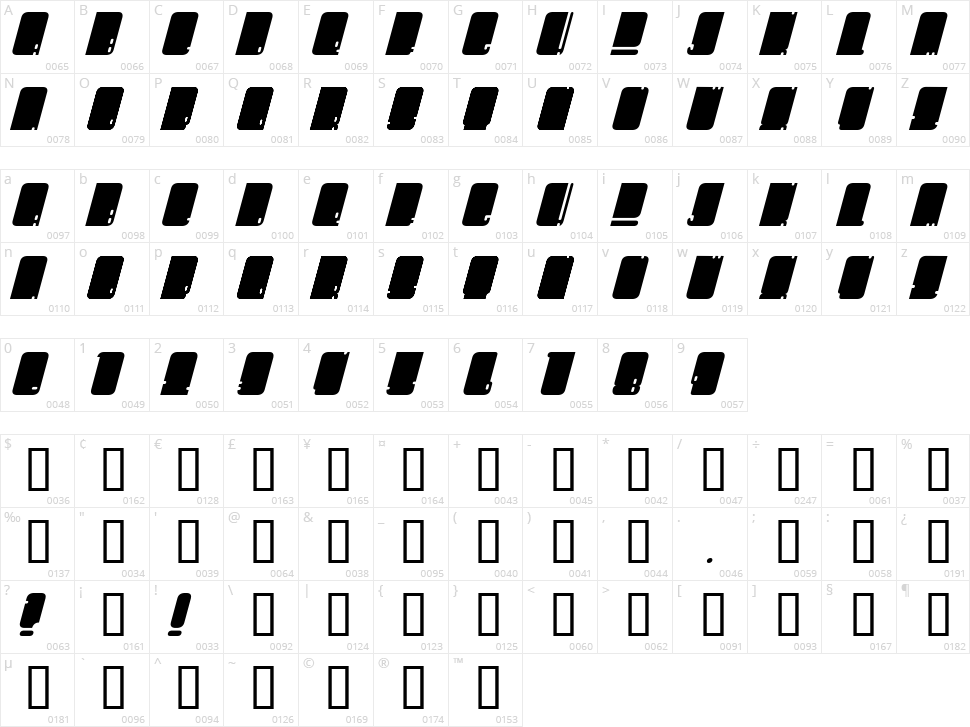
Oh Mega Sigh by Matt Perkins.
A nice and heavy techno font. I'm having trouble find techno fonts on the WWW
so I'm making my own.
*** THIS FONT DOES NOT AND WAS NOT INTENDED TO HOLD UP AT SMALL POINT SIZES!! ***
A Typography in Decay production in 1997.